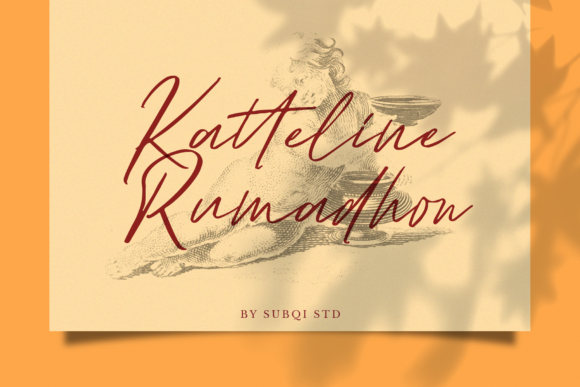
Immerse yourself in a world of elegance with the captivating Katteline Rumadhon script font. Its graceful curves and playful strokes will transform your designs into masterpieces of visual allure.
Unleash your creativity with a symphony of letters that echo the rhythm of a gentle breeze. The Katteline Rumadhon script font, meticulously crafted by the talented Subqi Std, is an invitation to express yourself with an inimitable flair.
Dive into a realm of boundless possibilities, where words dance across the page in a captivating ballet of form and function. Engage your audience with messages that ignite emotions and leave an unforgettable imprint on their minds.
The Katteline Rumadhon script font is more than just a collection of characters; it's a portal to a world of imaginative expression. Its enchanting ligatures and playful alternates weave a tapestry of typographic delight, adding a touch of magic to every design.
Indulge in the exquisite beauty of the Katteline Rumadhon script font. Its graceful lines and enchanting curves will elevate your projects to new heights of sophistication and charm. Embrace the power of timeless elegance and captivate your audience with designs that resonate with their hearts.